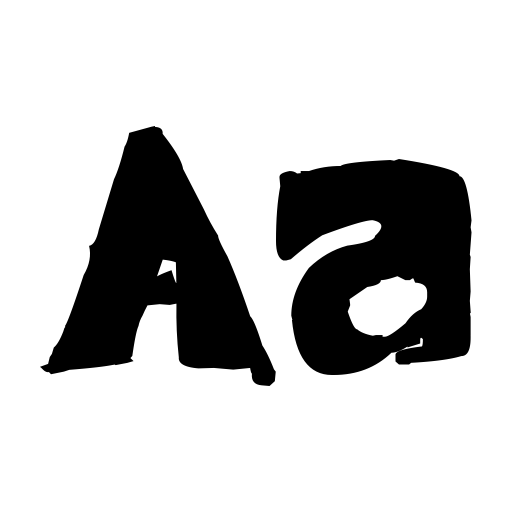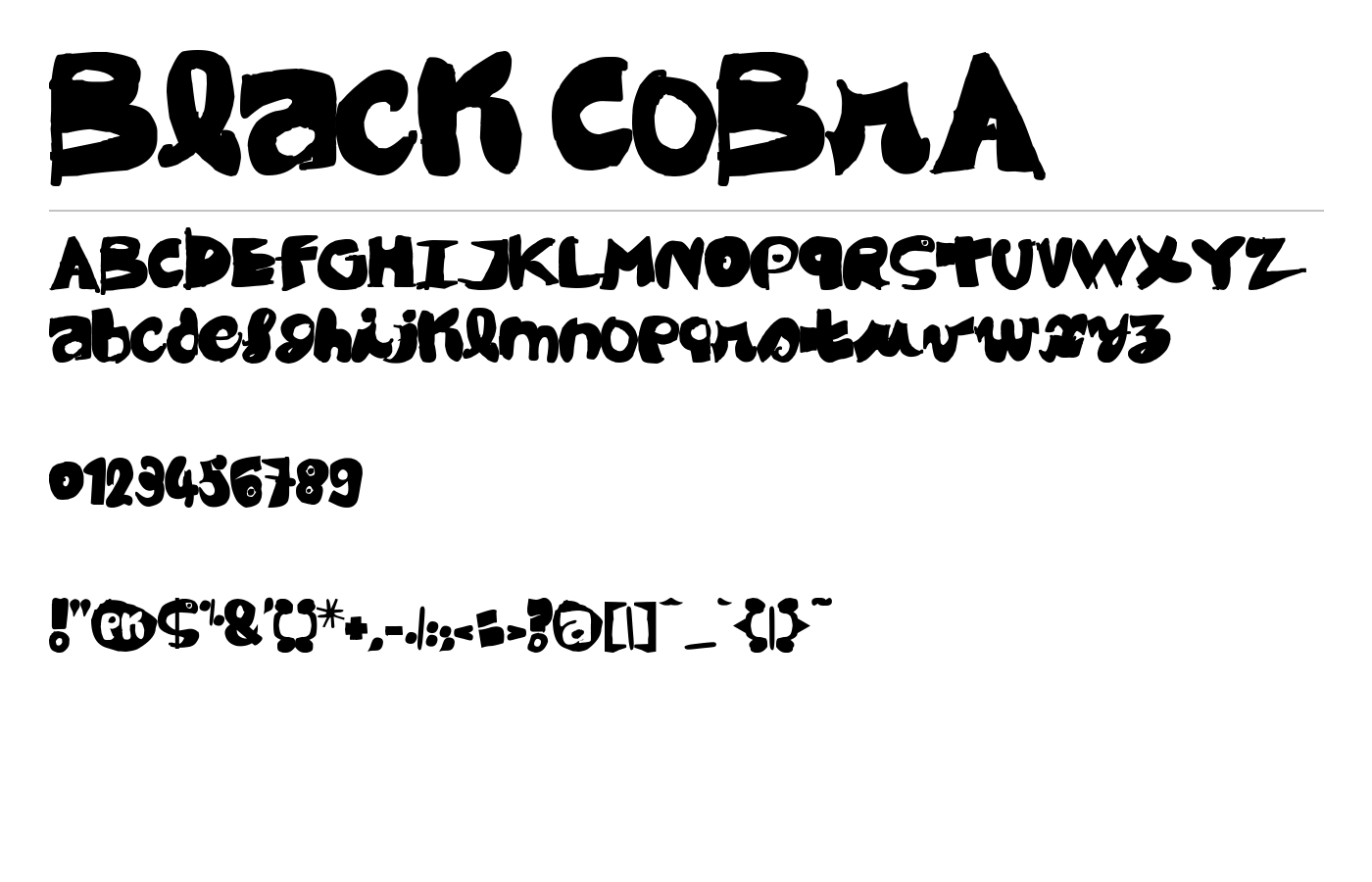
Black CoBrA is a bold, playful display font with a hand-drawn, brushstroke style that gives it a lively and energetic personality. Its irregular shapes and chunky letterforms make it perfect for eye-catching headlines, logos, and creative projects where a fun, informal vibe is desired. This font works best in contexts that want to convey spontaneity and creativity, such as posters, branding for artistic ventures, and casual editorial layouts.
Black CoBrA Font
About Black CoBrA Font